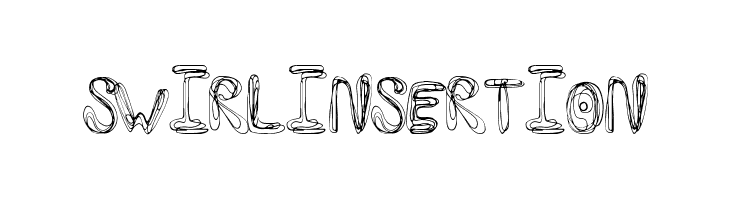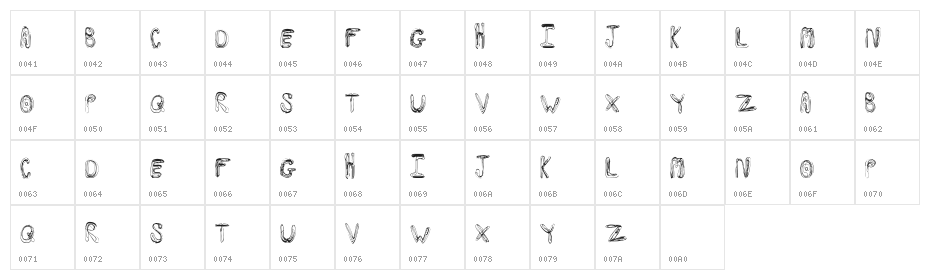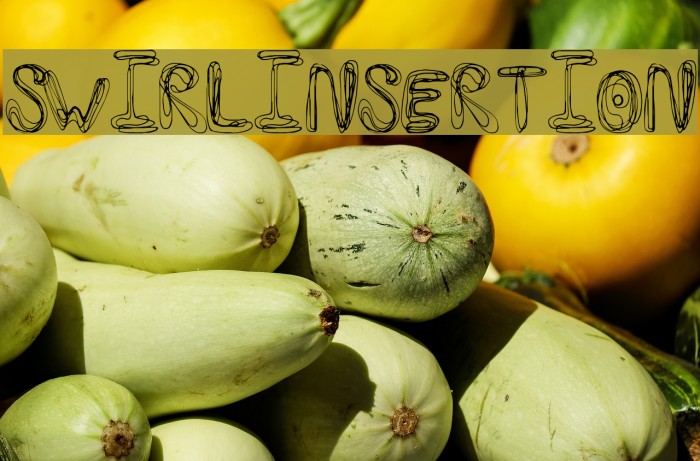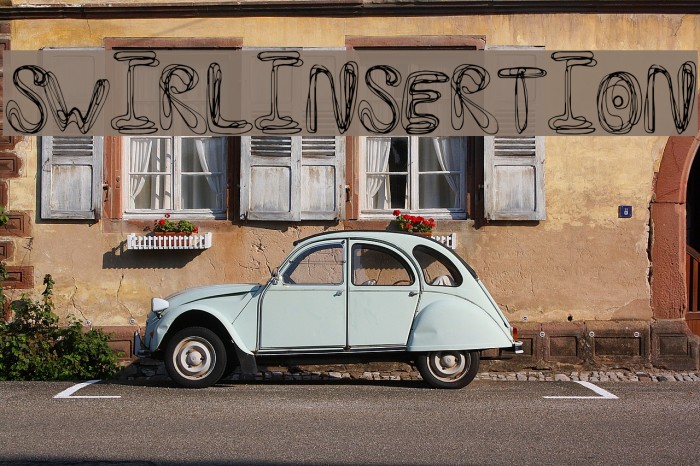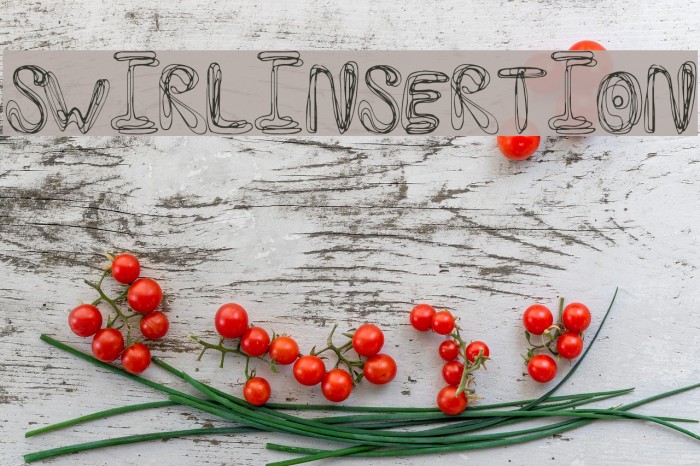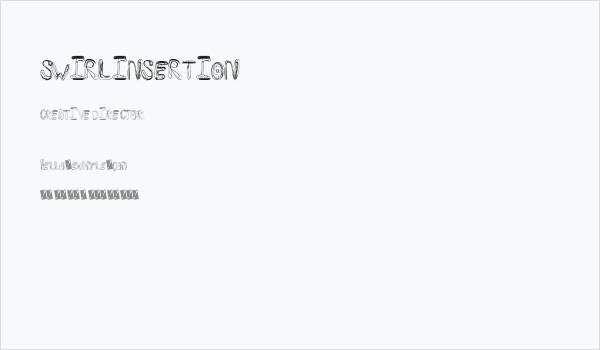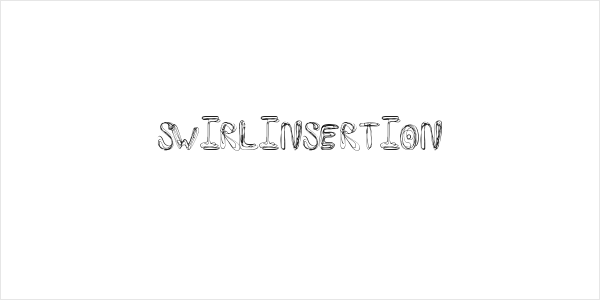
SwirlInsertion Font
SwirlInsertion Description
This font features a unique, artistic style with swirling, intricate lines forming each character. The letters are bold and decorative, with a hand-drawn appearance that adds a whimsical and playful touch. The uppercase and lowercase letters maintain a consistent design, emphasizing the swirling patterns that give the font its distinctive look. The numbers and special characters follow the same artistic theme, ensuring a cohesive appearance across all elements. This font is ideal for projects that require a creative and eye-catching design.
| Proposed Projects | Perfect for artistic posters, creative branding, children's book covers, and whimsical invitations. |